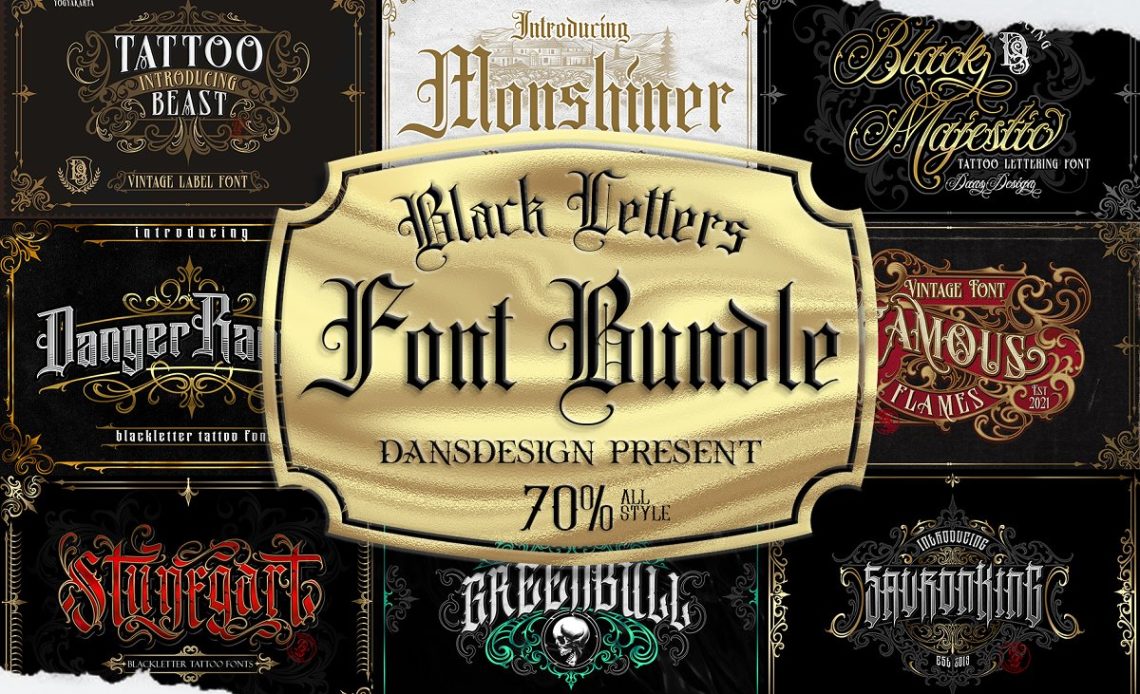
Introducing the Blackletter Font Bundle #2, a collection of 9 unique and captivating fonts designed by the talented Danu Setyaji and brought to you by Dansdesign. These fonts are perfect for anyone looking to add a touch of elegance and sophistication to their designs.
With the Blackletter Font Bundle #2, you'll have access to the best fonts for display, all in one convenient package. Each font family is carefully crafted to ensure that your message is communicated with clarity and impact. Whether you're designing a logo, a poster, or a website, these fonts will elevate your project to the next level.
But it's not just about functionality - these fonts are also visually stunning. Each letter is a work of art, with intricate details that will catch the eye and captivate the imagination. From the ornate flourishes to the bold strokes, these fonts exude a sense of luxury and refinement that is sure to impress.